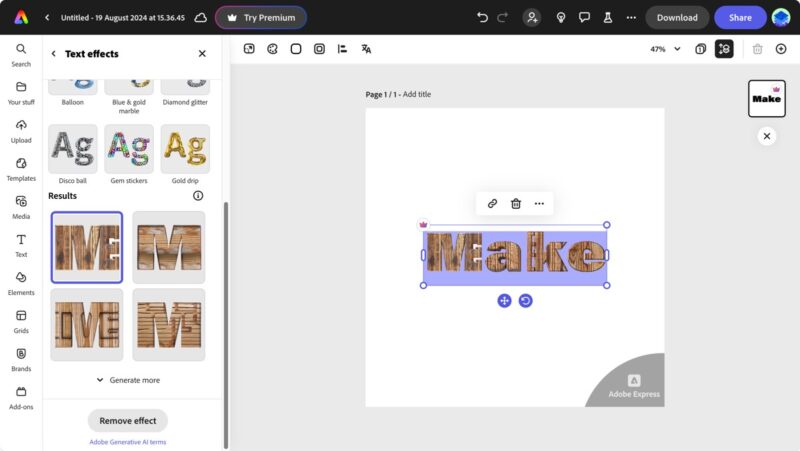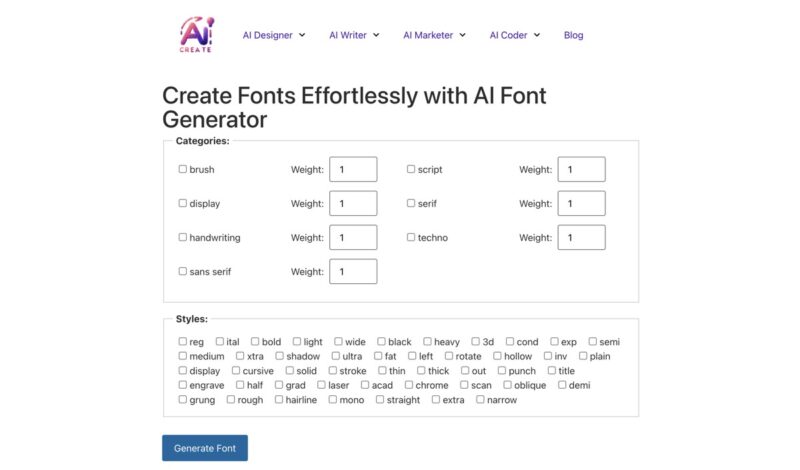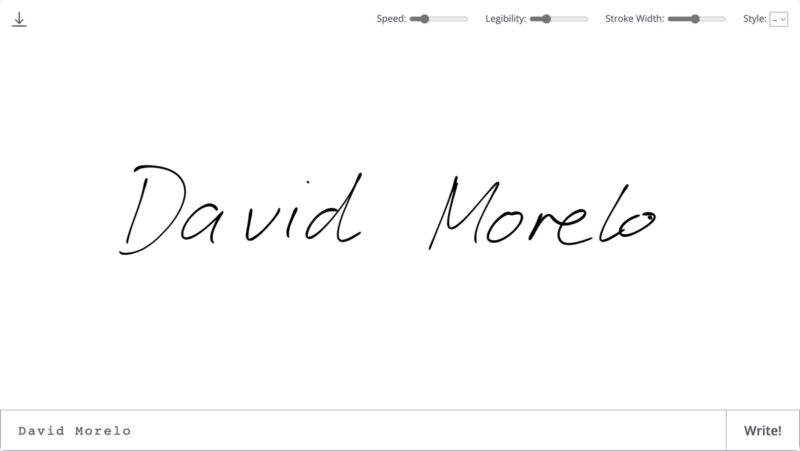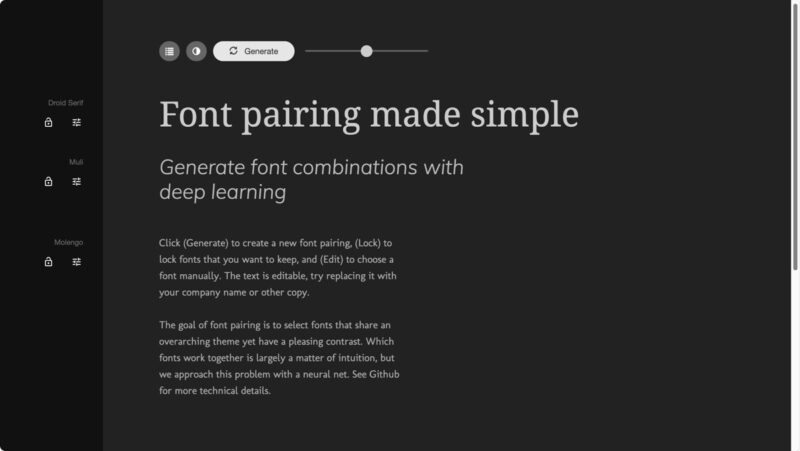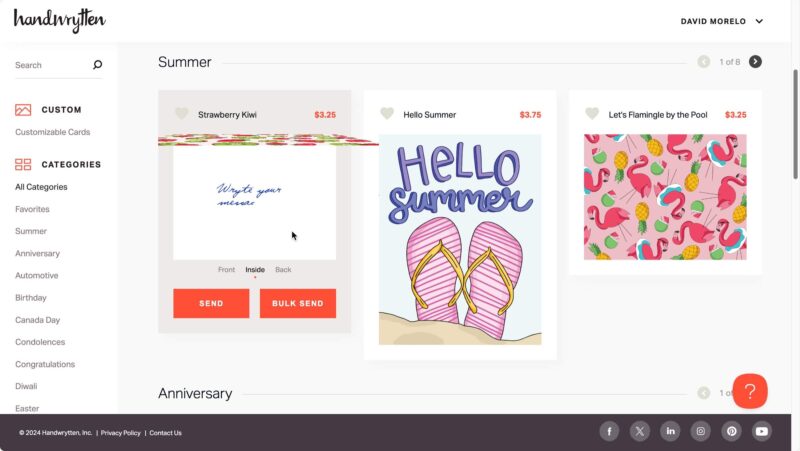
Even typographers aren’t safe from artificial intelligence, as there are already many font generation tools that let you generate new unique fonts, find the right font pairs, and much more. I’ve tested many AI font generators in recent weeks, and these are my favorites.
Best for Generating New Fonts: AI Create
AI Create’s Font Generator offers a user-friendly platform for creating custom fonts without breaking a sweat. It’s the only tool on this list that can generate TTF font files that you can add to your font library on Windows, macOS, or Linux.
The font-generation process is very simple, but the results can be surprisingly useful. Start by selecting one or more font categories and assigning them different weights. Do you want your font to resemble handwriting, for example? Just select the category, and give it a large weight.
To further influence the style of the generated font, choose multiple styles, such as bold or hollow. Click the Generate Font button, and wait a few seconds for your TTF file. While the generated fonts can’t really replace fonts created by professionals, they can be useful for experimenting with styles without the need to invest in expensive software or time-consuming manual design processes.
Best for Applying Styles to Text: Adobe Express Text Effects
Ever wished you could conjure up eye-catching text effects with just a few words? Enter Adobe Express Text Effects. This feature of the Adobe Express content creation tool uses generative AI to transform plain text into visually stunning creations.
Describe the style you’re after – such as “neon lights in a cyberpunk city” or “organic, flowing letters made of water” – and watch as the AI brings your vision to life. The tool offers a range of customization options, allowing you to tweak fonts, tints, and styles until you achieve the perfect look.
I’ve used the Adobe Express Text Effects feature to generate text logos for a client’s social media profiles, and they instantly became very popular with both the client and its audience.
Best for Finding Font Pairs: Fontjoy
Fontjoy, created by Jack Qiao, takes the guesswork out of font pairing with the power of deep learning. The tool uses a neural network trained on thousands of font combinations to understand the subtle relationships between different typefaces.
Click Generate to see instant pairings, or they can lock in fonts they like and generate new matches for the remaining slots. As such, it serves as an excellent starting point for designers and non-designers alike to discover compelling font combinations.
Best for Animated Handwriting: Calligrapher.ai
Calligrapher.ai is a simple, but clever web app that transforms typed text into fluid, handwritten strokes, complete with a mesmerizing animation that mimics the act of writing.
Users can tweak parameters, such as legibility, stroke width, and overall style, to achieve the perfect handwritten look. The animation speed is also adjustable, to allow for quick scribbles or thoughtful, deliberate penmanship.
Once you’ve crafted your perfect handwritten text, download it as an SVG file by clicking the download icon. This vector format opens up a world of possibilities. You can import the SVG into graphic design software to further customize the text, scale it without loss of quality, or integrate it seamlessly into larger design projects.
Best for Generating Handwritten Postcards: Handwrytten
Handwrytten offers a unique twist on AI-generated handwriting by combining digital technology with physical robotic writing. Using custom-designed robots equipped with real pens, the service lets its users create authentic-looking handwritten notes that bridge the gap between digital convenience and the personal touch of handwritten correspondence.
Type your message, choose from various handwriting styles, and select card designs (or upload your own). The service employs AI to check that each note looks great before the robotic systems pen the message onto high-quality stationery.
But it doesn’t stop there: Handwrytten handles the entire process, including addressing, stamping, and mailing your cards. While the cost of sending one handwritten postcard is quite high, I can see using this service for special occasions like birthdays, anniversaries, and thank you notes.